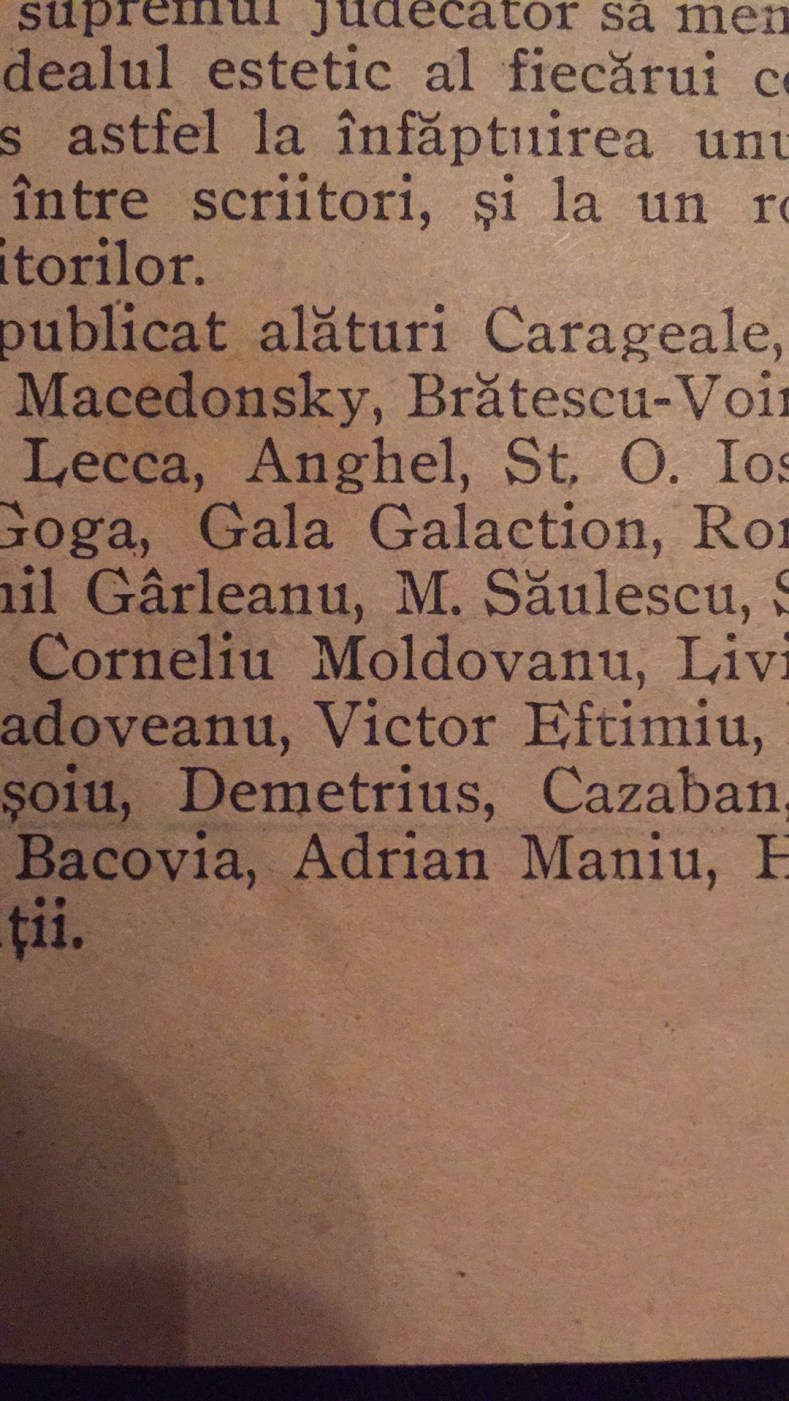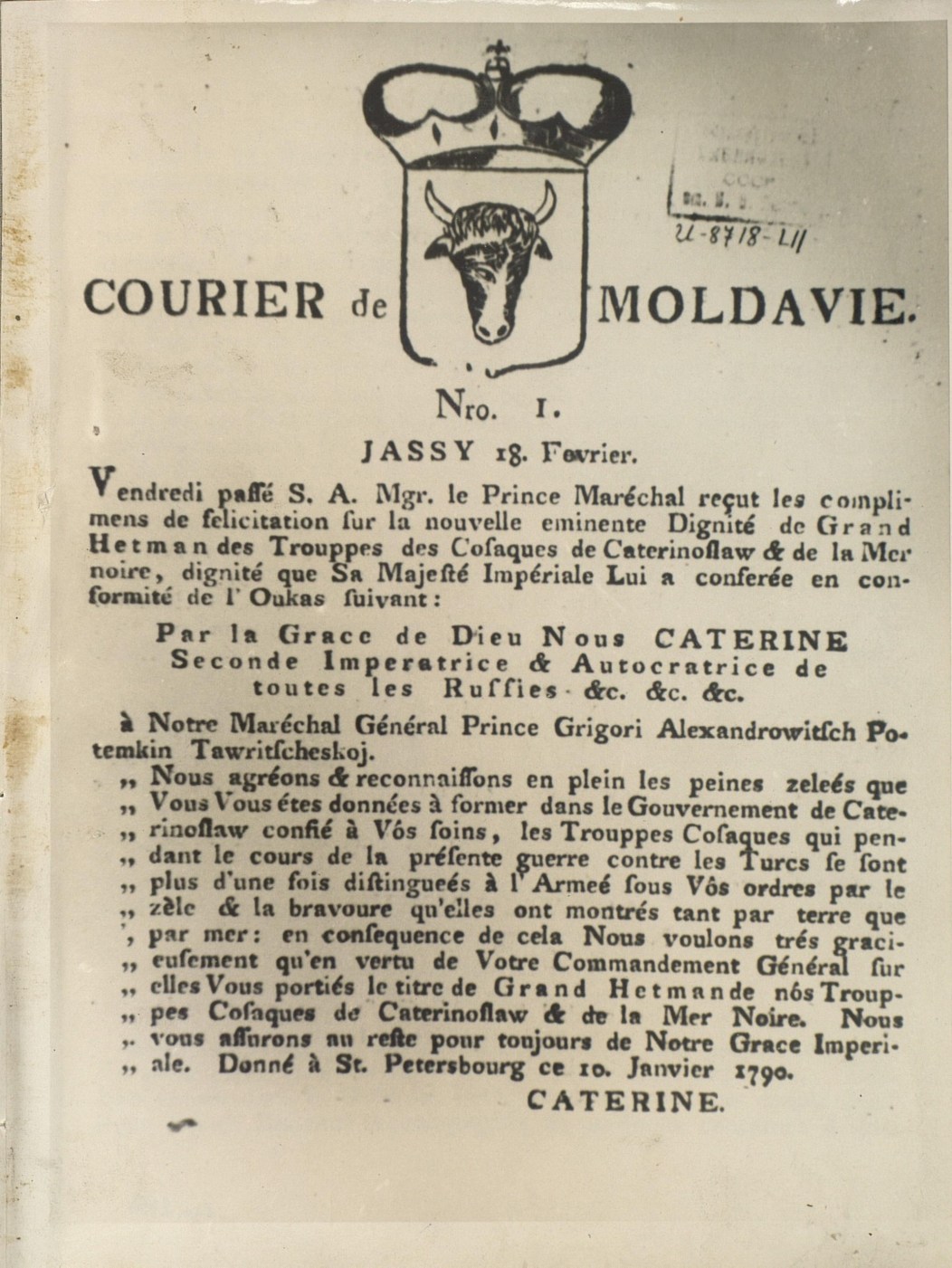
Can someone please identify this font? (COURIER de MOLDAVIE)
Hi, I found this on first romanian newspaper from Feb/18/1790 and was just wondering what is the font used in this title and body text. Can you help me to identify the origins? Thanks :)
I think I found the same font in another newspaper from 1922, in a good quality of print.
I’m afraid they aren’t the same typeface.
Your 1922 sample appears to be Ronaldson, introduced by MacKellar, Smith & Jordan in 1884.
I’ll have to do some work on the other samples in Photoshop to see if I can get a decent enough image to match....
The nameplate (Courier de Moldavie)—type and image—is likely one entire hand-engraved block.
The body copy appears to be an early Garamond/Jannon face, but there isn’t enough detail in your samples to pin it down further.
I think I found the typeface for body text :) Caslon - English Roman
William Caslon's 1734 Specimen sheet.
Check "English Roman" version. Apparently it seems that the characteristics fit.
Similar, yes, but I’m still not convinced.
Caslon wasn’t widely used on the continent (England and the American Colonies, yes, Europe, no) in the late 18th century. It’s unlikely that a French language publication would use it in that era.
I read that the letters for this print were brought from Poland, and from this point I deduced that the letters were easy to get from England. :(
I don’t think it was a case of access, but of politics—England and the continent were at odds during this time, and a French or Francophone publication using an English typeface strikes me as unlikely.
Some history on Polish printing of the era: